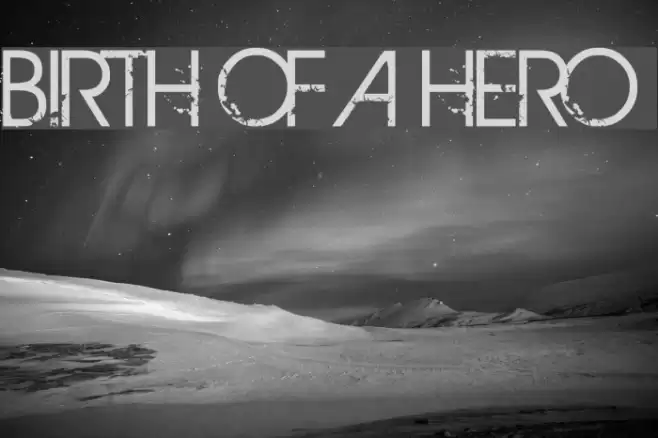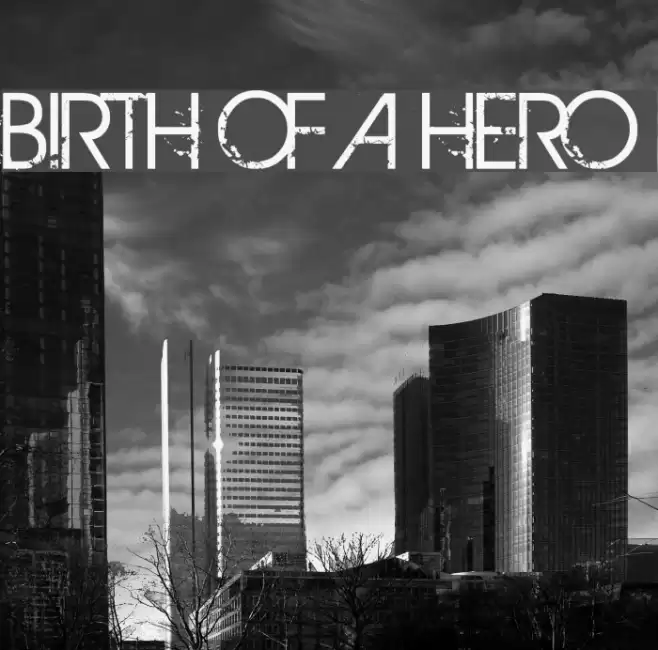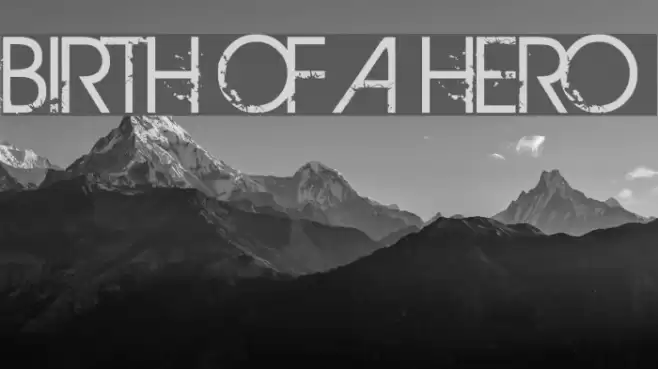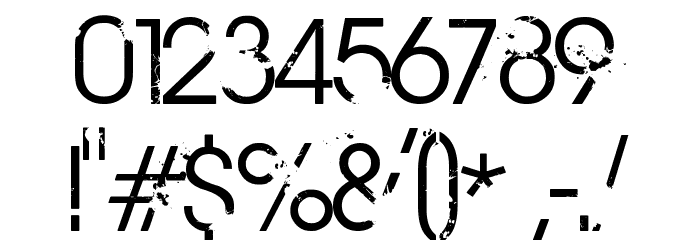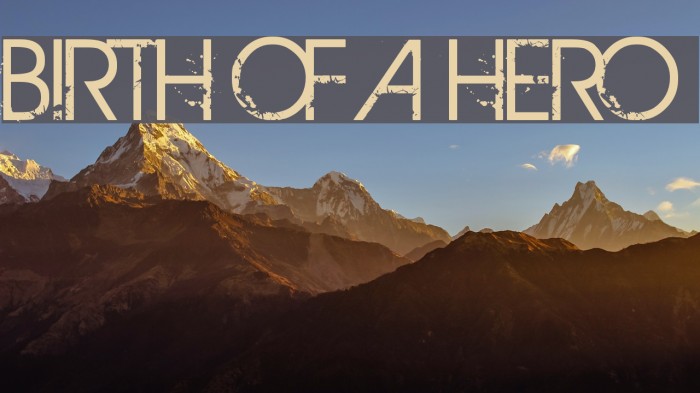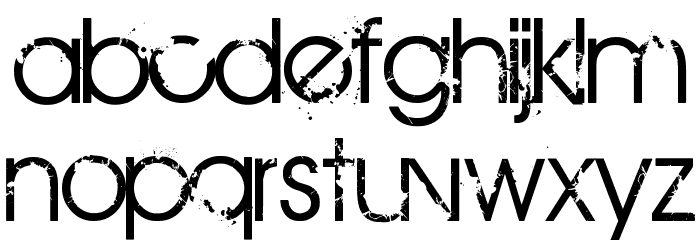
BIRTH OF A HERO Font
BIRTH OF A HERO Description
This font features a bold, distressed style with a modern and edgy appearance. The characters are sans-serif with a unique grunge texture that gives them a worn and rugged look. The uppercase and lowercase letters maintain a consistent height, while the numbers and special characters follow the same stylistic theme. The font's design is striking, making it ideal for projects that require a bold statement. Its distressed texture adds a layer of depth and character, making it suitable for artistic and creative applications.
A bold, distressed sans-serif font with a modern, edgy look.
- Proposed Projects: Ideal for album covers, posters, branding, and any project requiring a bold, artistic statement.
- Overall Style: Modern, Edgy, Grunge